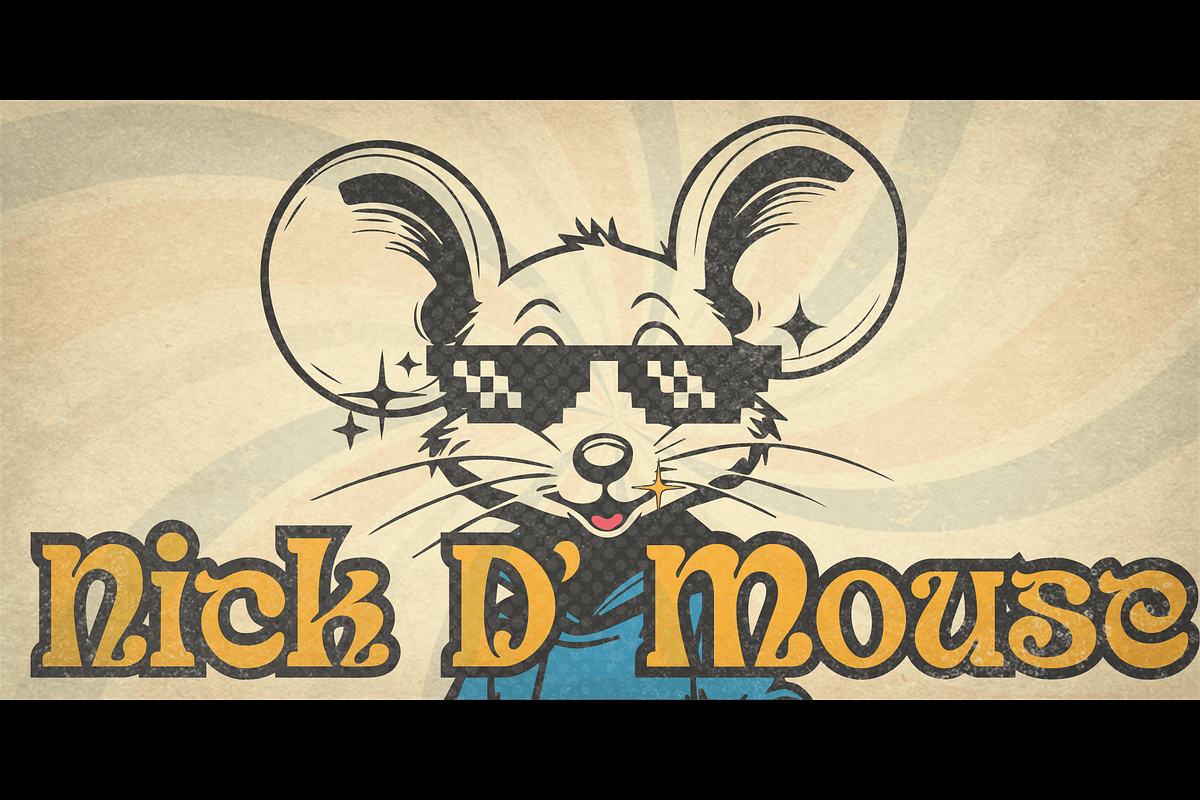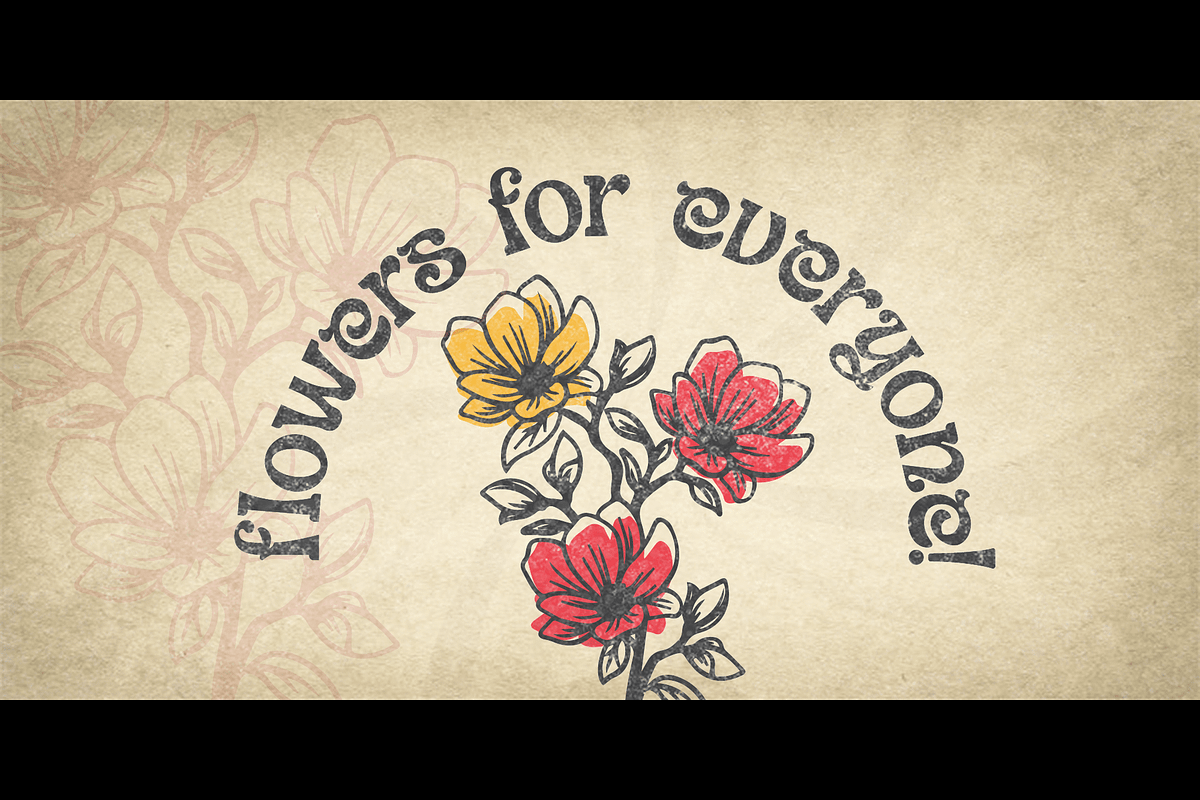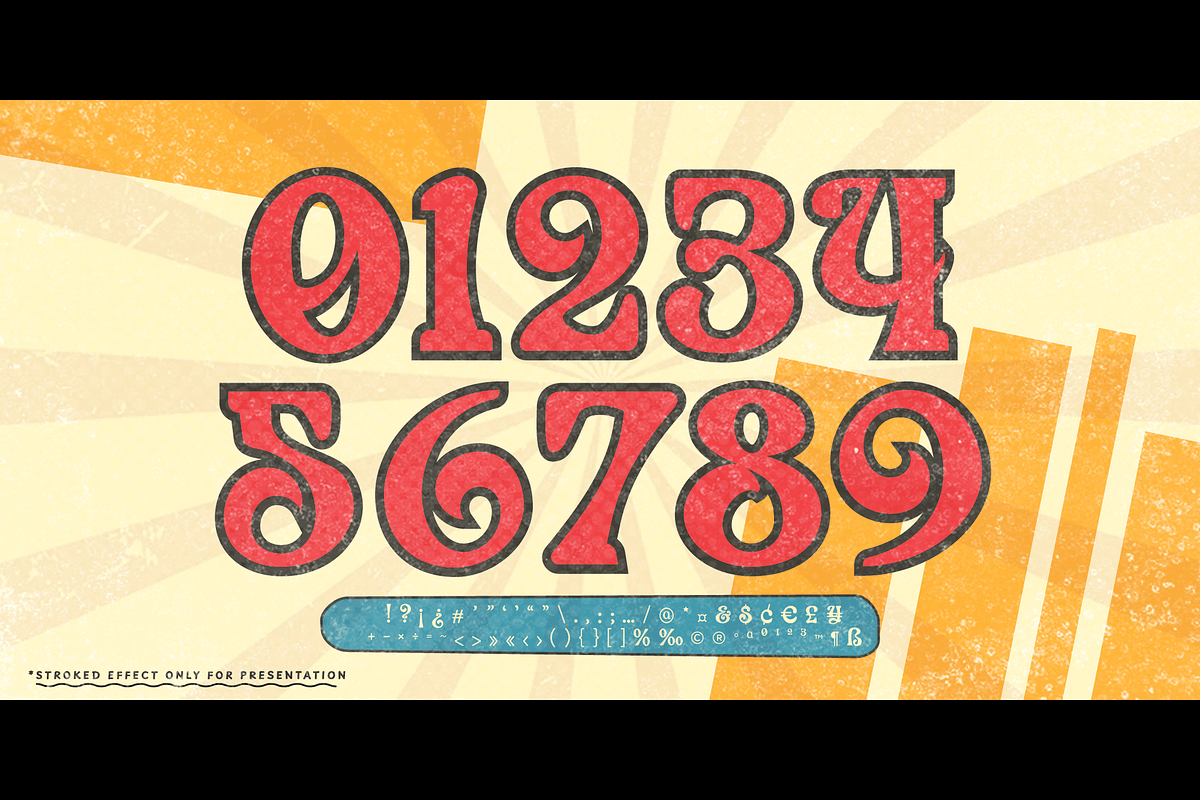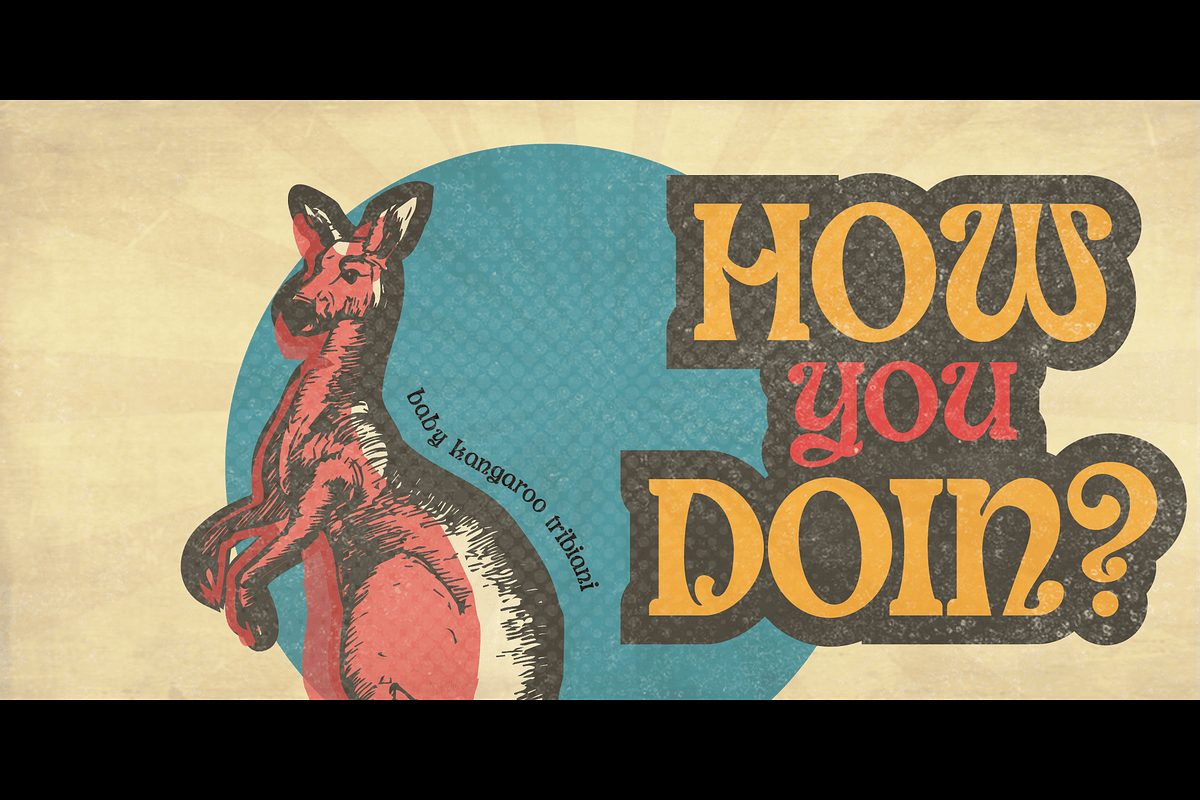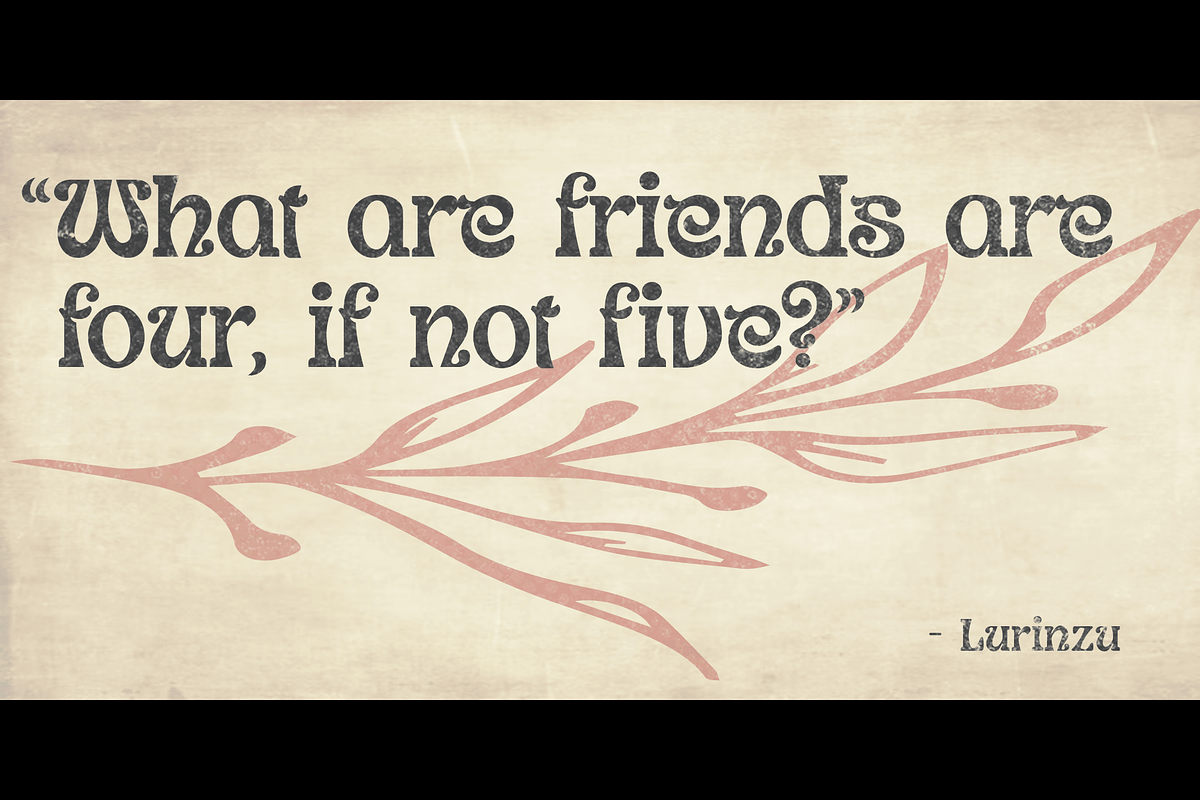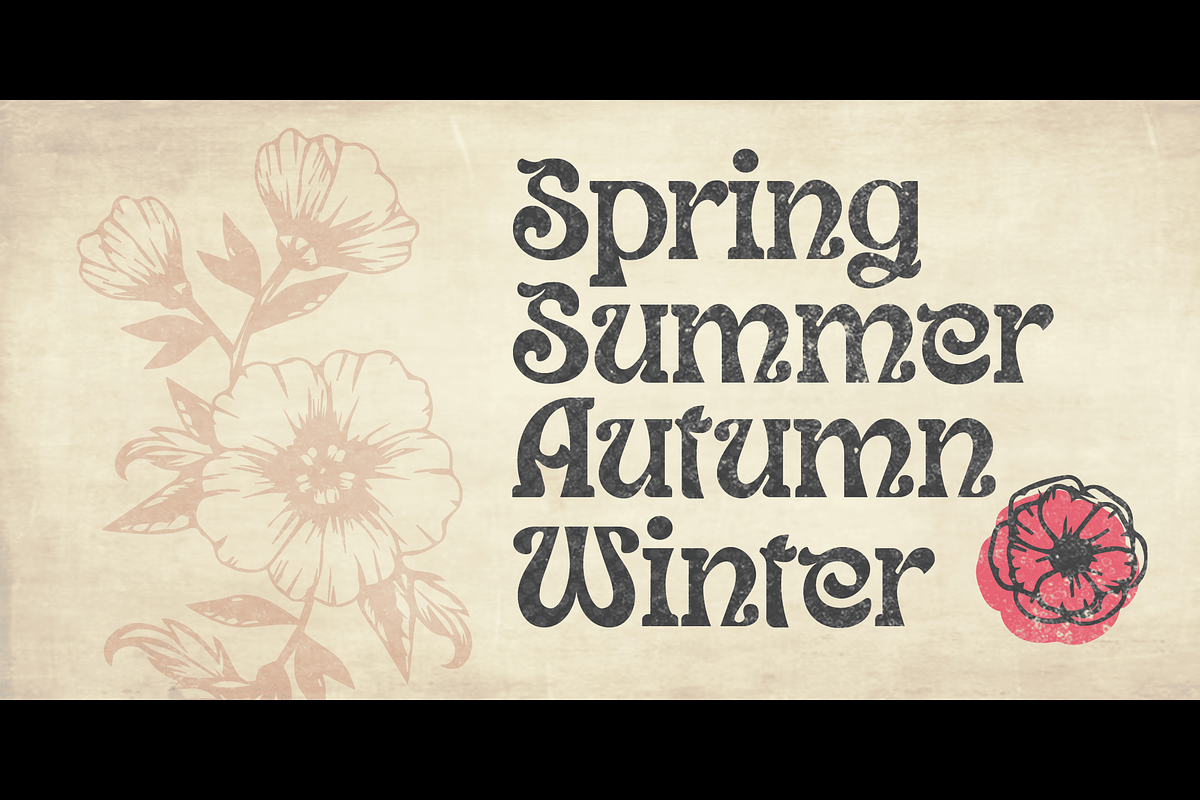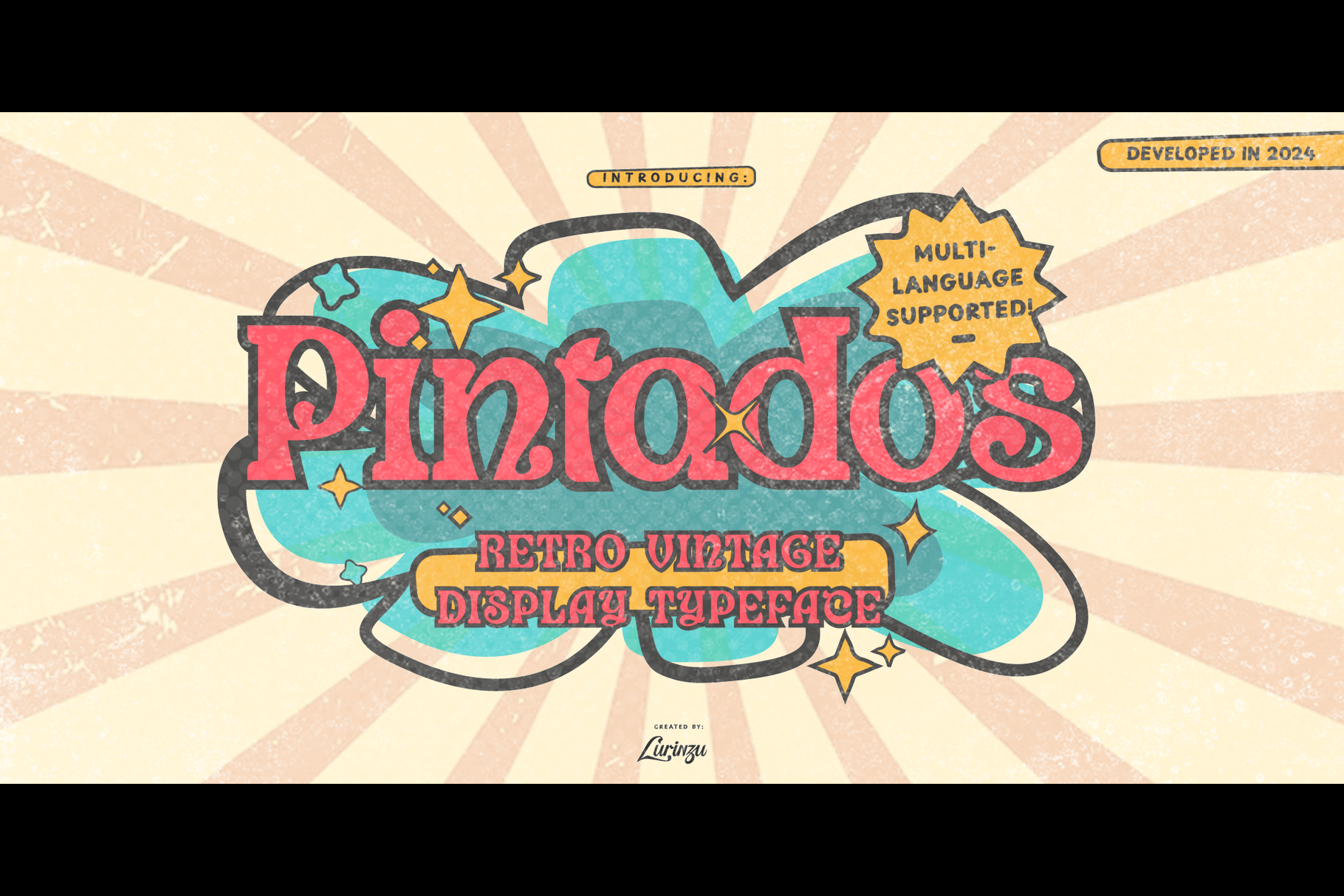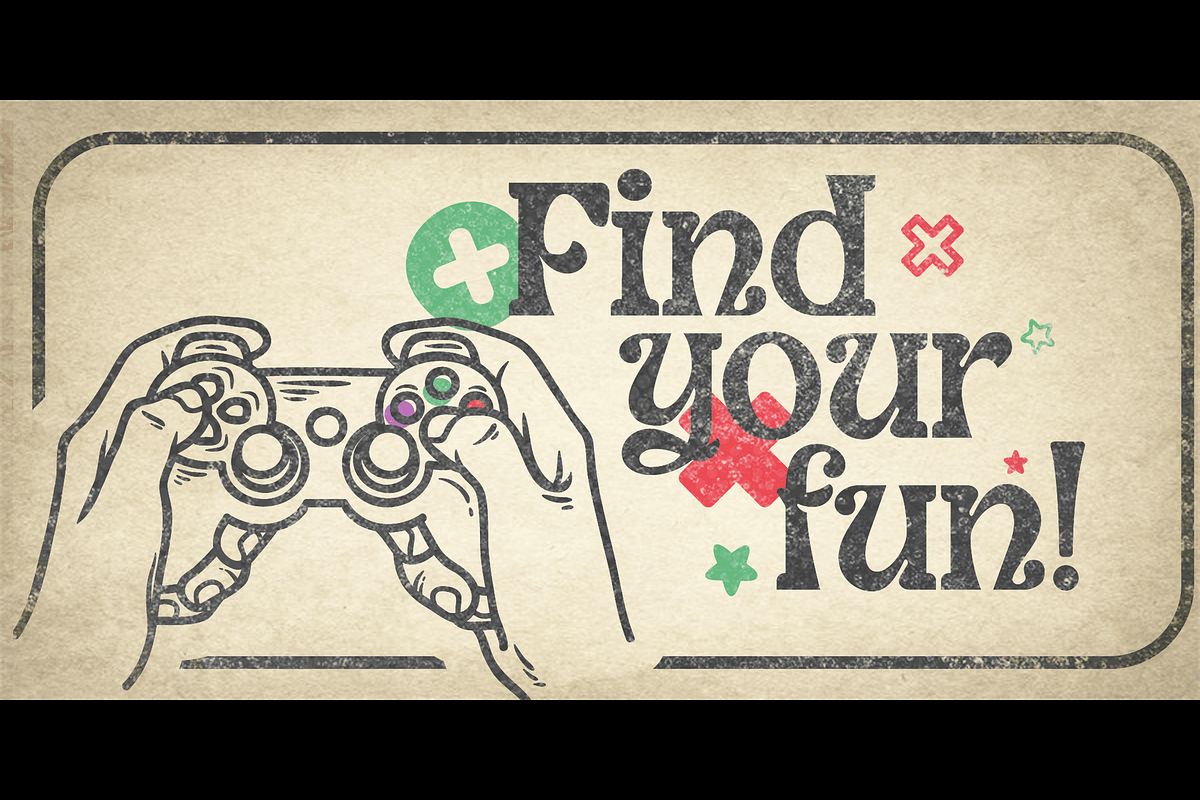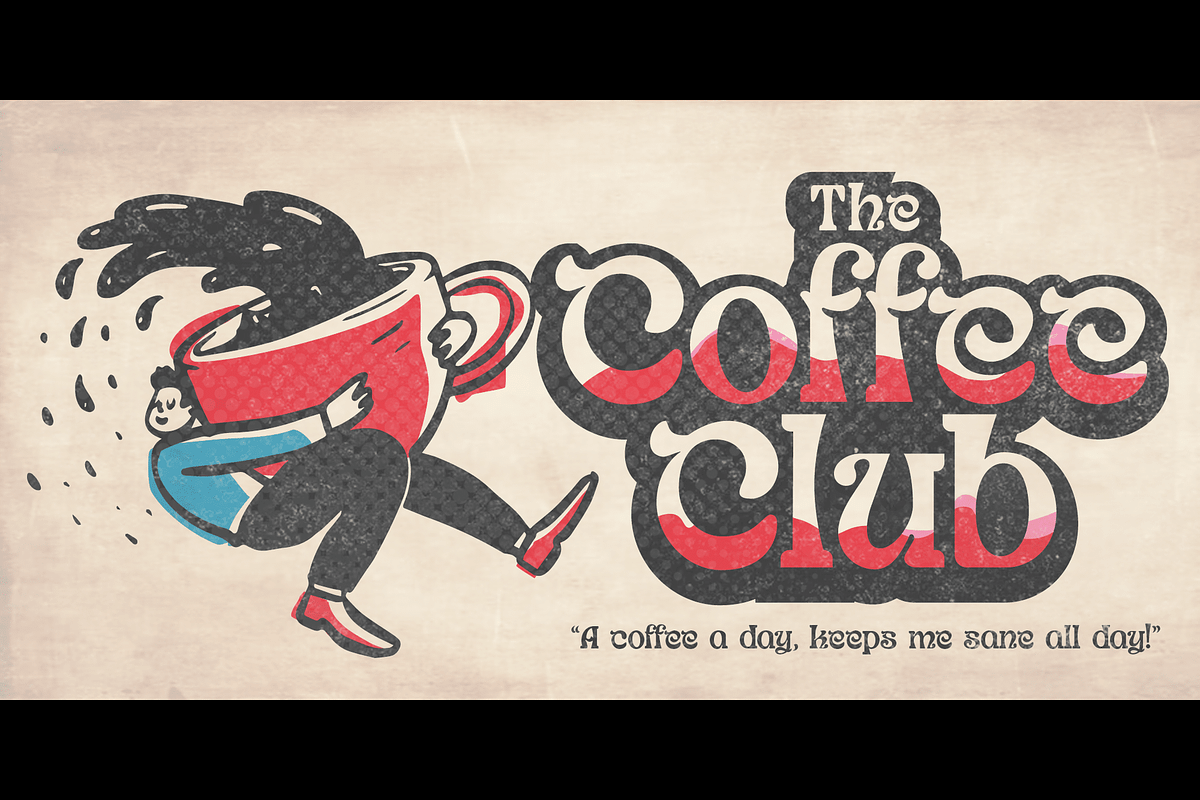
Pintados-Retro Vintage Typeface
“Pintados” is a vintage retro display typeface that is inspired by the old-school Filipino comedy film/ show posters from the 70s-80s era. The main idea or concept here is for the letters to look more hand-painted rather than write (like how usual fonts are made)
This typeface is developed to be used in more organic, hand-crafted, retro-vintage-like designs to maximize the playfulness and characteristics of each letterform. This typeface has been made with the "hand-crafted or drawn look" in mind hence it also works well with illustrations, sketches, or anything that feels like drawn by hand. It may also be used on retro type designs.
This typeface is best used when you want to express playfulness, organic vibes, and art nouveau, funk, and vintage personality in your design.